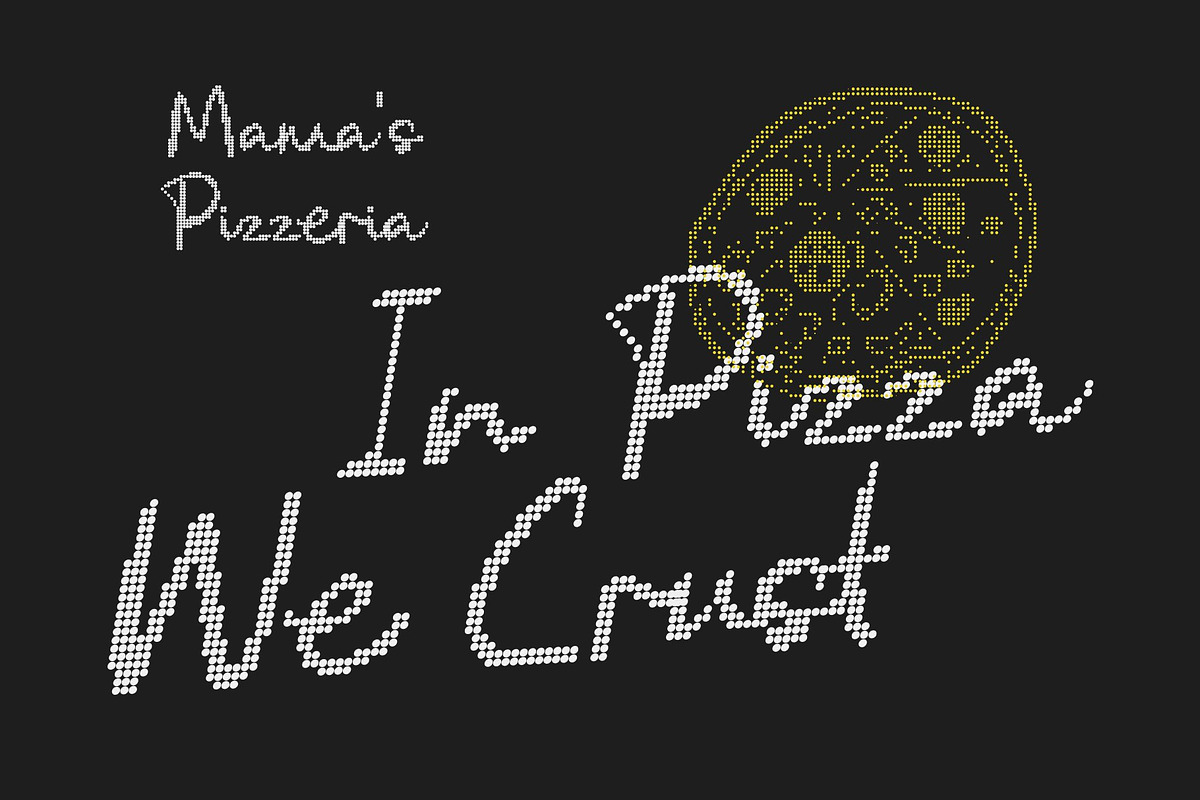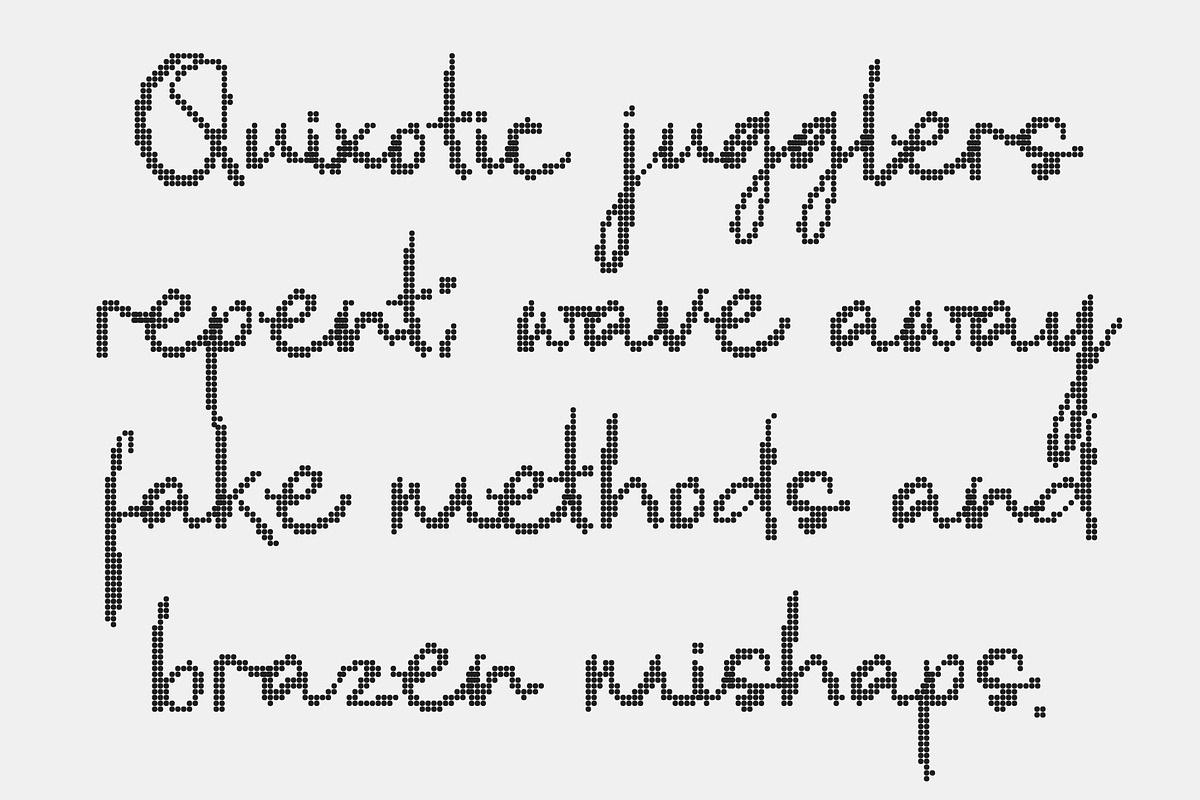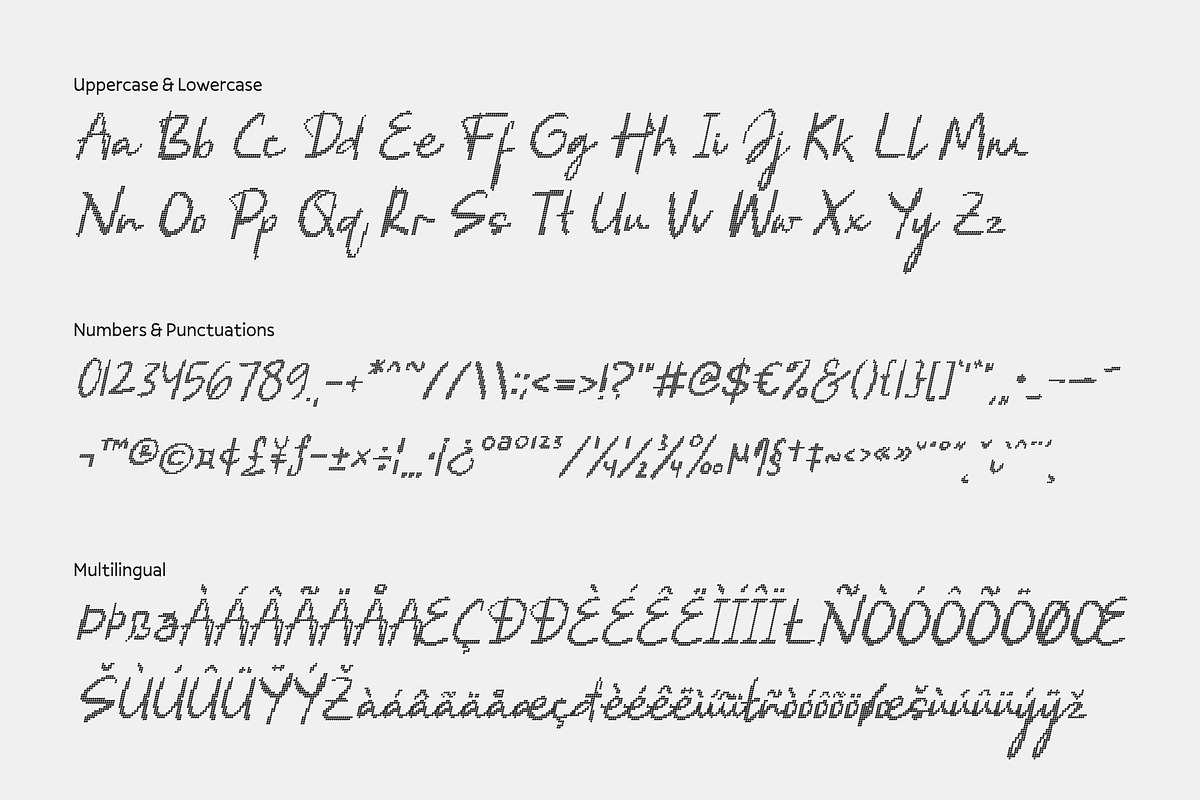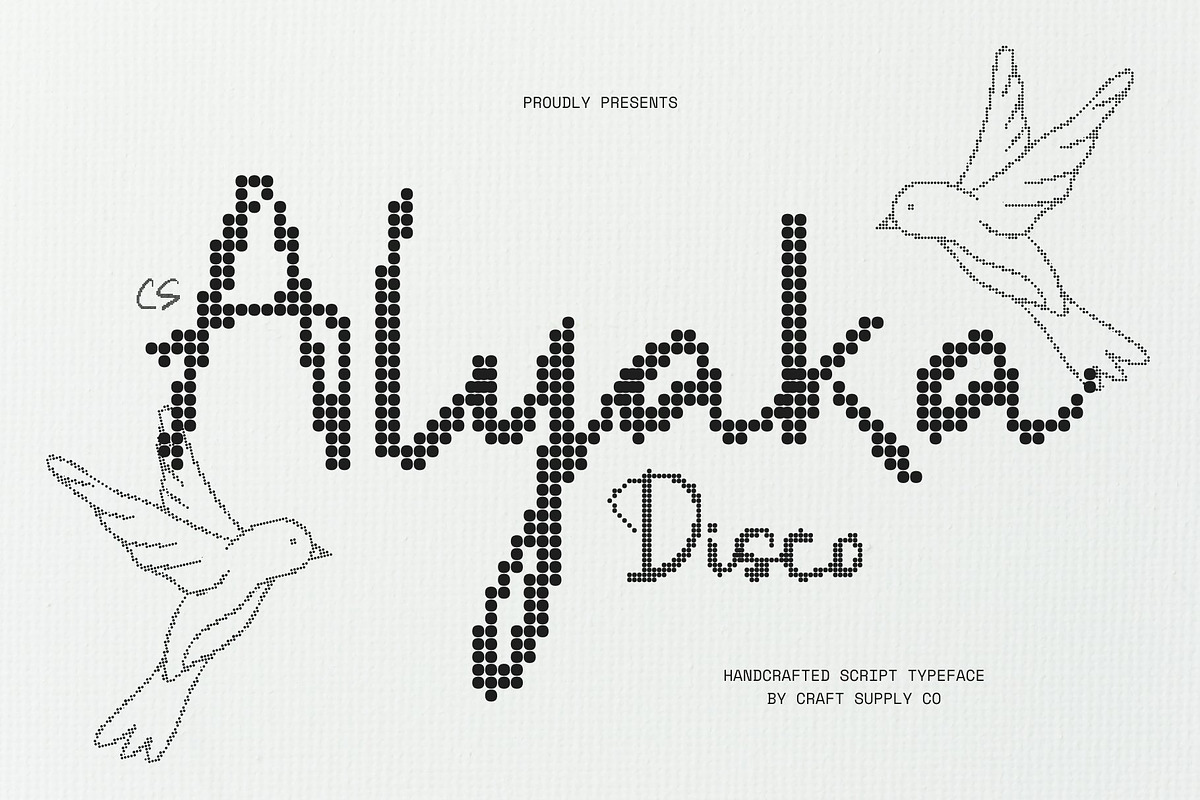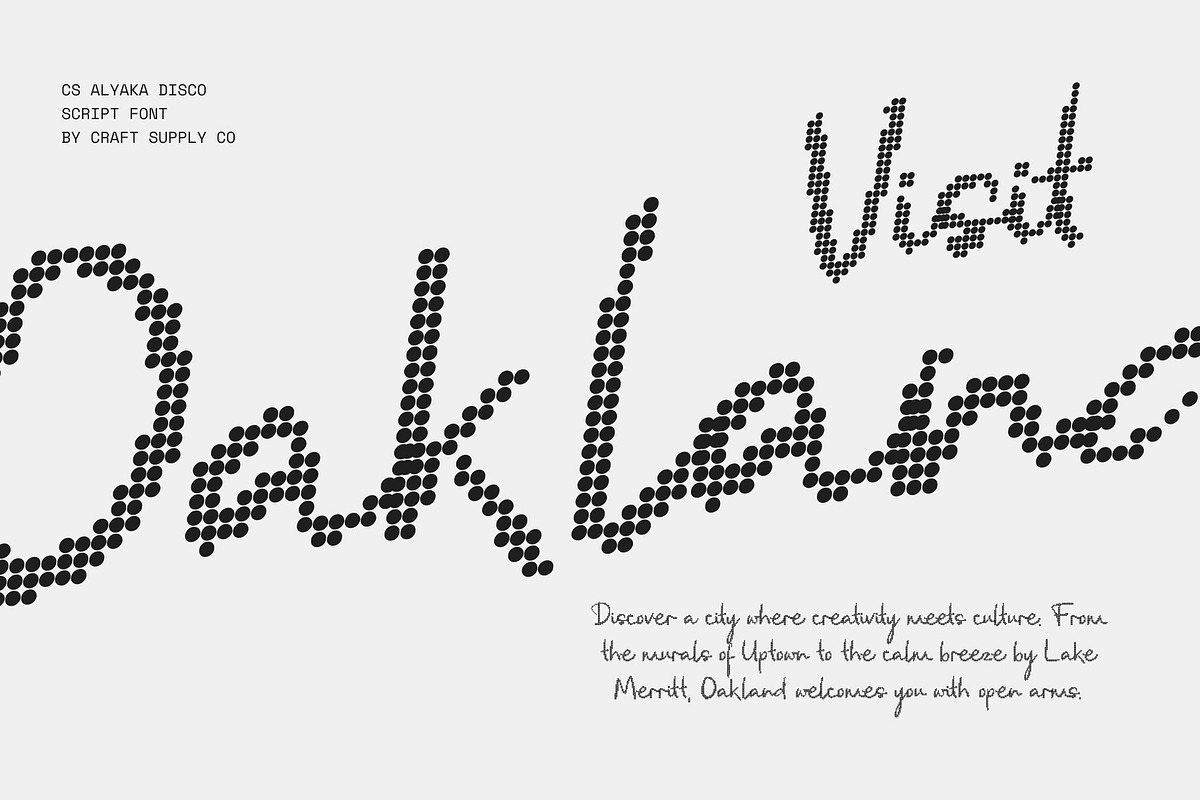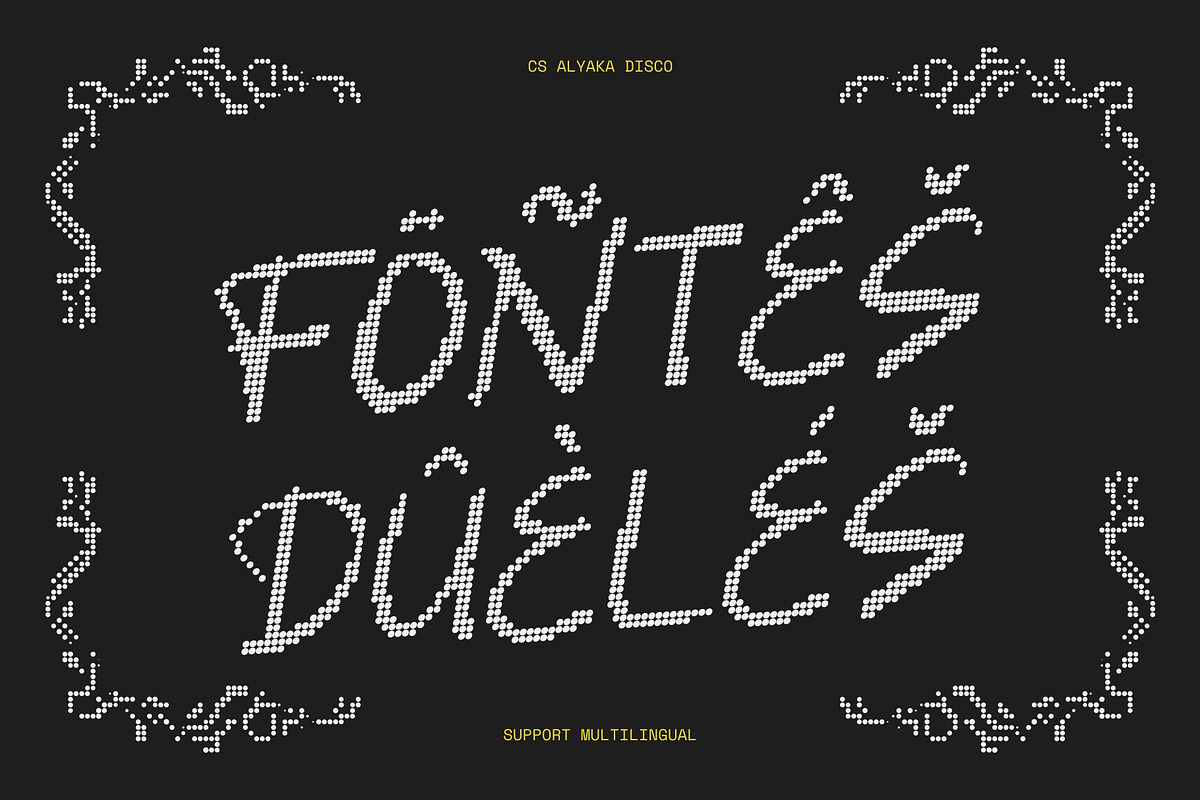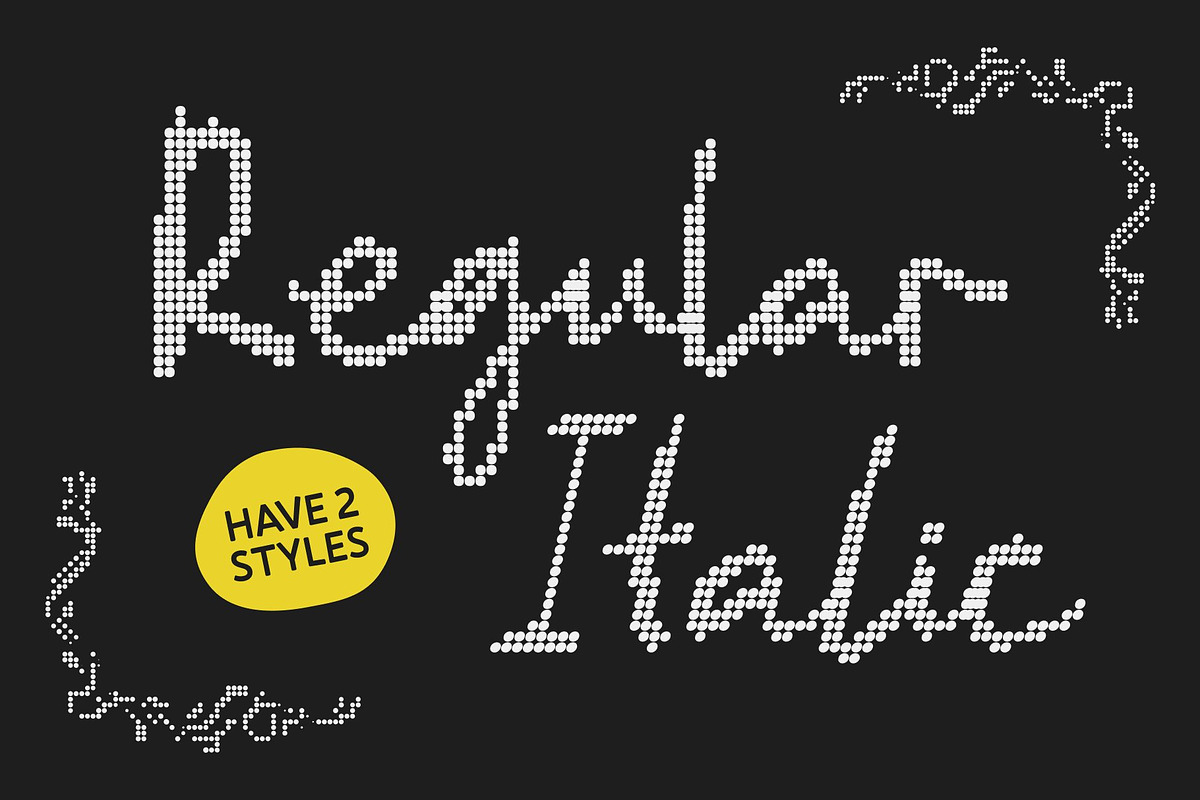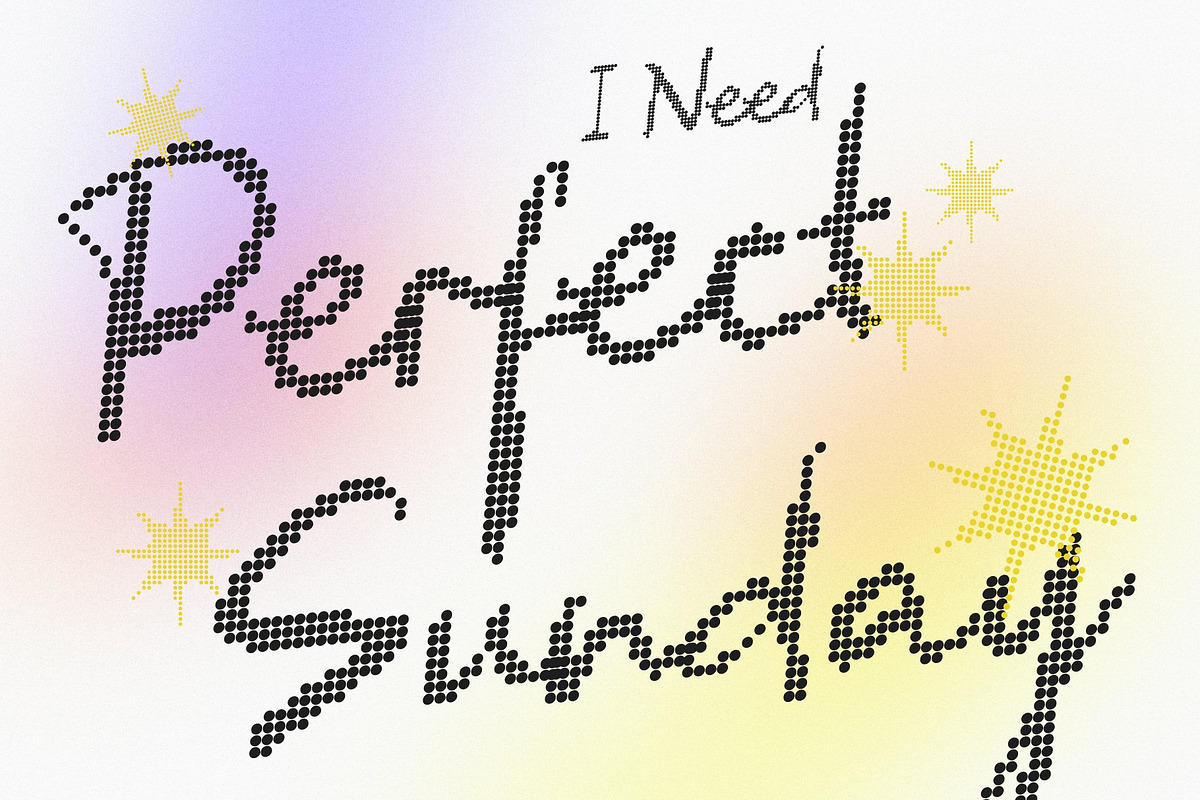
CS Alyaka Disco
CS Alyaka Disco – Authentic Handwritten Warmth with a Joyful Disco Spirit
Handwritten Script with Natural Pen Energy This is a handwriting script font created to capture the sincerity and warmth of real pen strokes, now enhanced with a light disco-inspired liveliness. Inspired by natural handwritten motion, each letter flows with genuine rhythm and expressive charm, creating a personal, human feel that’s warm, friendly, and engaging.
Organic Flow with Casual, Lively Personality Featuring smooth curves, natural connections, and subtle stroke variations, this font feels relaxed and effortlessly expressive. The organic flow reflects real handwriting, while a gentle disco rhythm adds movement and joy like handwritten notes illuminated by soft, festive light.
Personal Expression with Cheerful Energy Perfect for designs that value emotion and approachability, this font brings personality and warmth to visual communication. Whether used as a main headline or a playful accent, it adds authenticity and a joyful tone that strengthens emotional connection and storytelling.
Ideal for Friendly, Creative, and Celebratory Designs Well-suited for greeting cards, casual branding, packaging, journals, social media graphics, and lifestyle projects, this font shines in applications that need a personal yet lively touch. It’s an excellent choice for small businesses, personal events, creative content, and designs that want to feel heartfelt, cheerful, and full of positive energy.